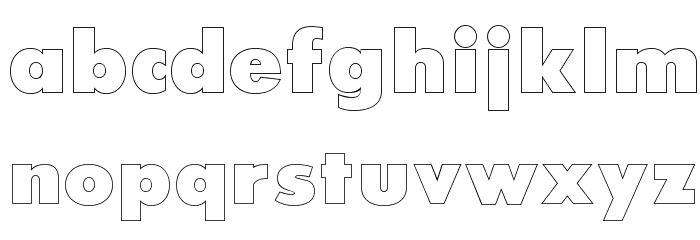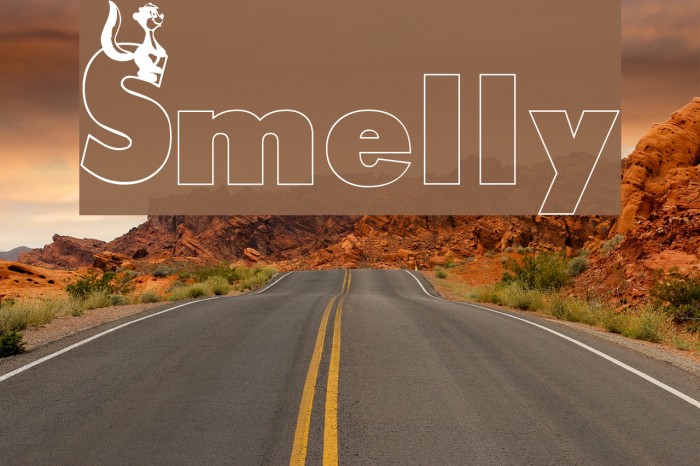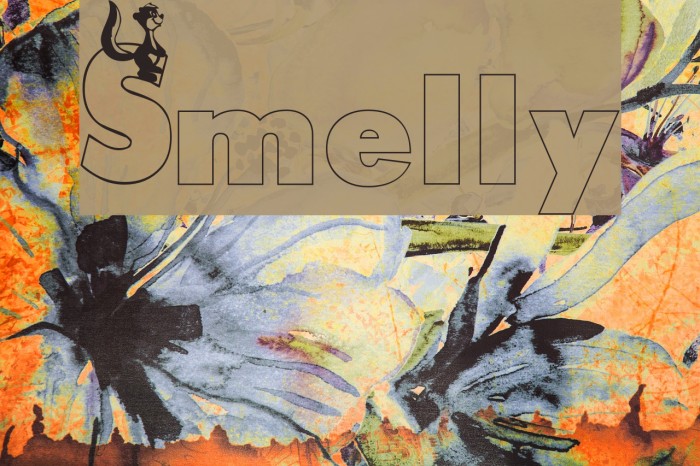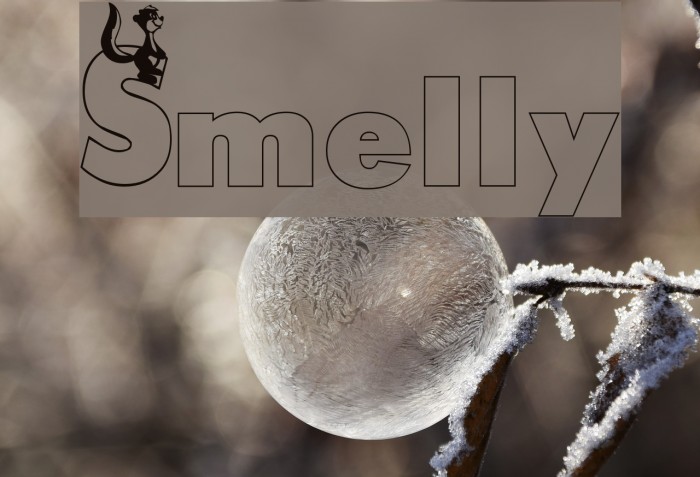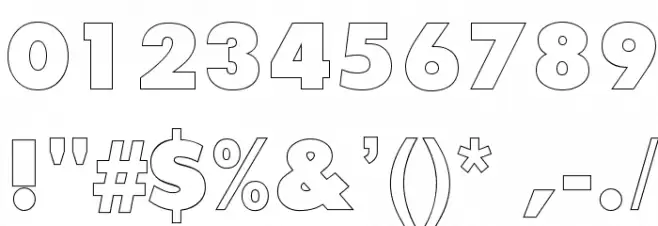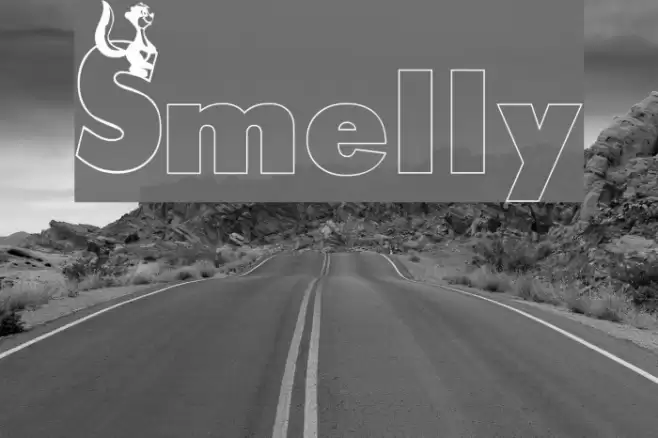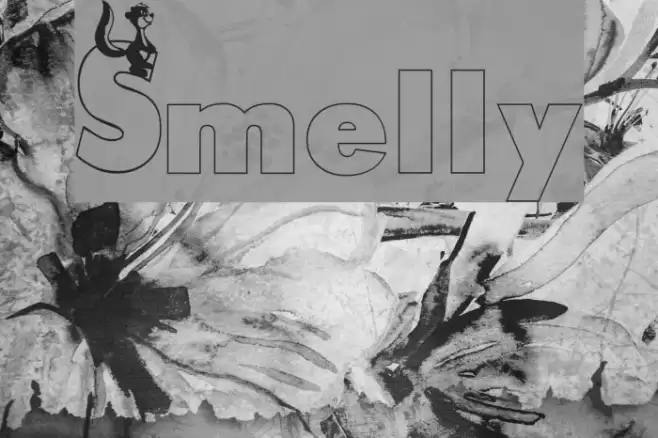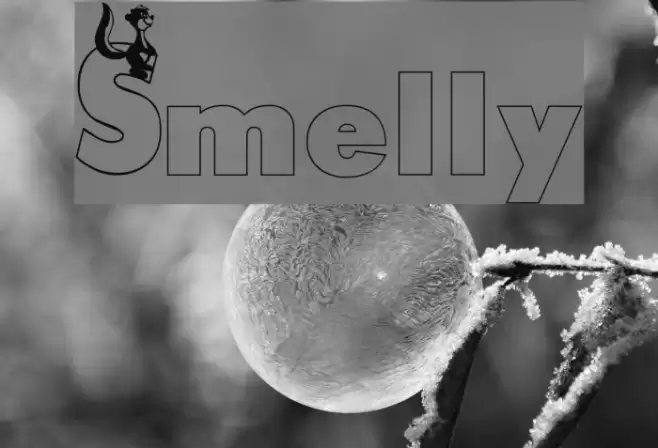
Smelly Font
This playful and whimsical font features bold, uppercase letters with charming skunk illustrations integrated into each character. The design is clean and modern, with a touch of humor and creativity. The lowercase letters maintain a simple, rounded style that complements the decorative uppercase. Numbers and special characters are included, maintaining the same bold and rounded aesthetic. The font's unique style makes it ideal for projects that require a fun and lighthearted touch.
A playful font with skunk illustrations in bold uppercase letters.
- Proposed Projects: Ideal for children's books, playful branding, greeting cards, and themed party invitations.
- Overall Style: Playful, Whimsical